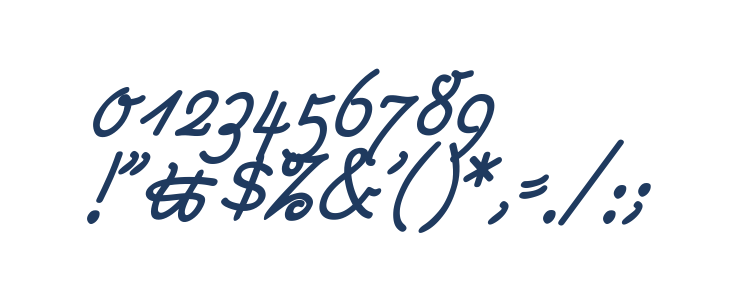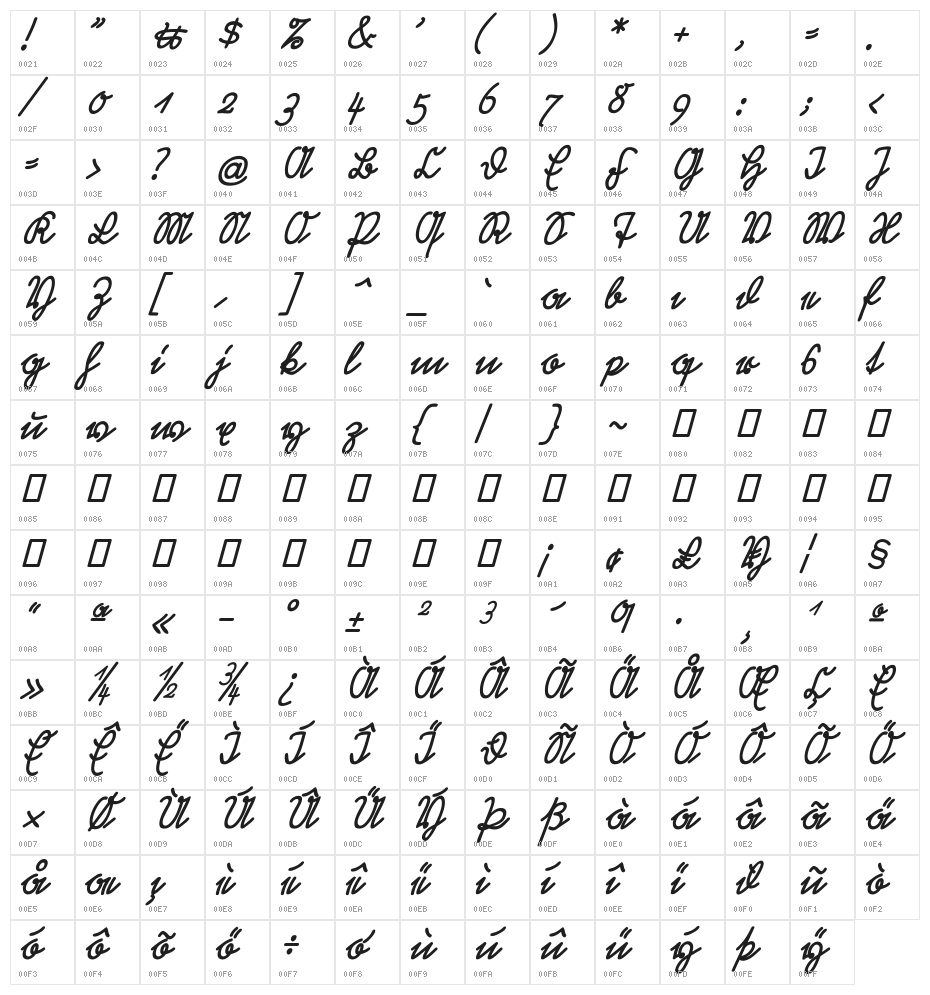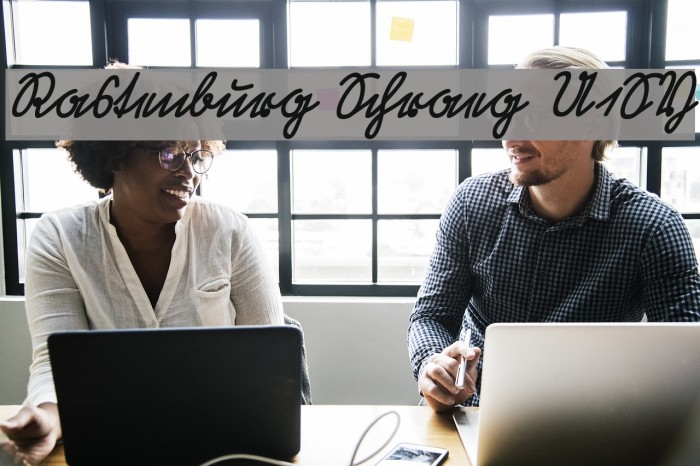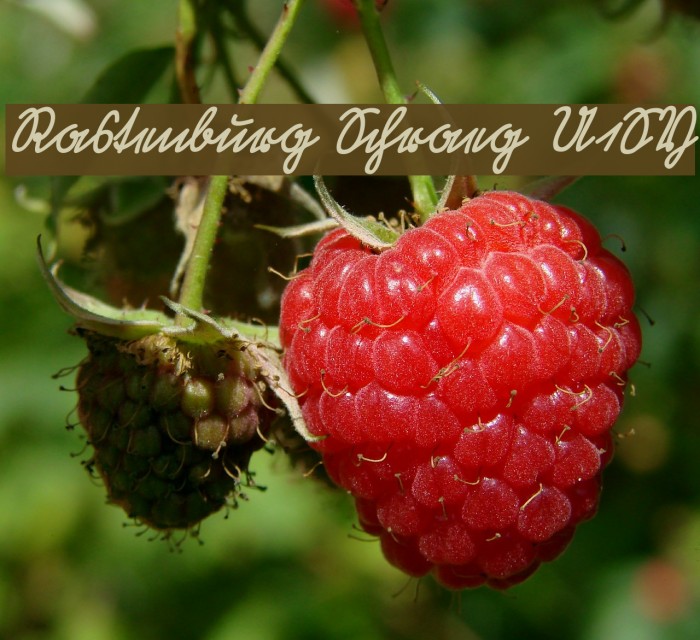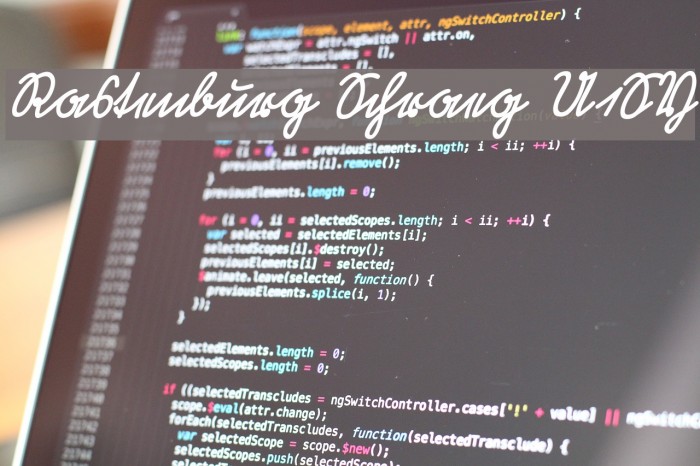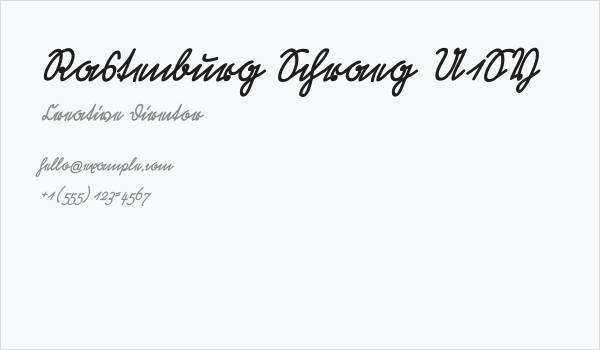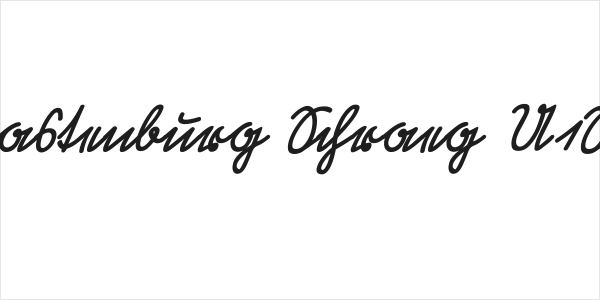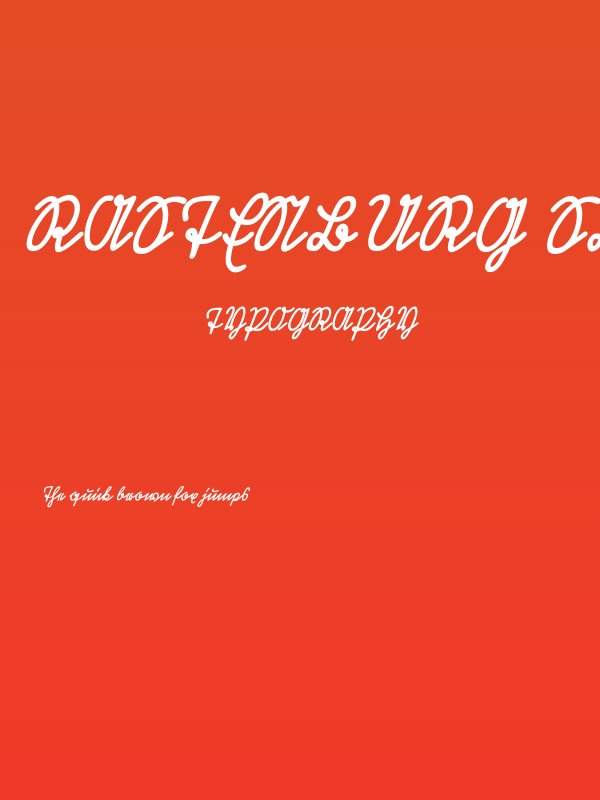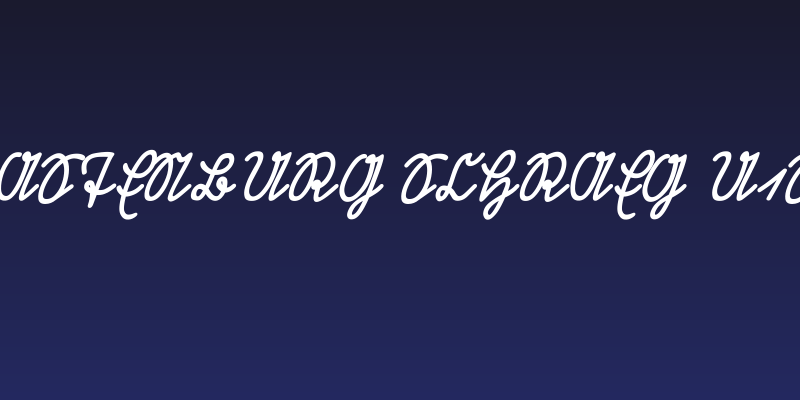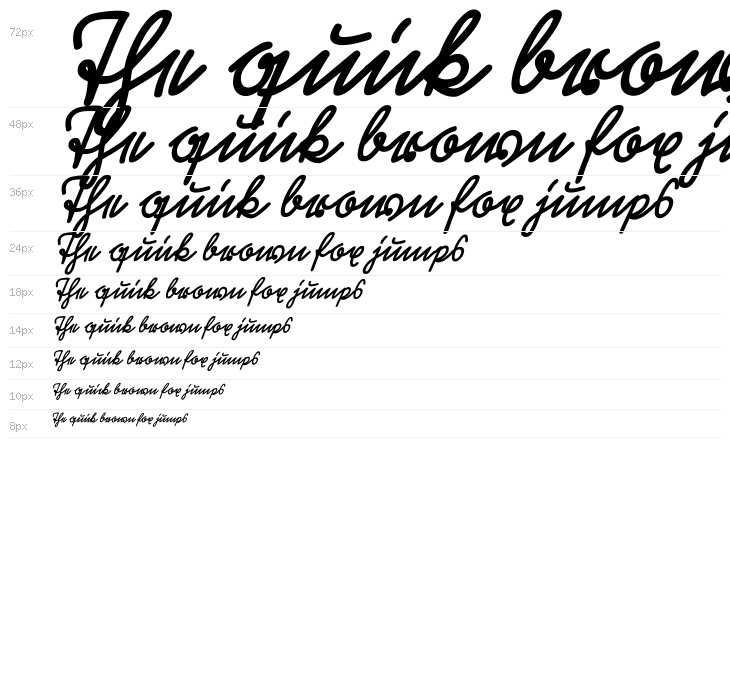
Rastenburg Schraeg U1SY Font
Rastenburg Schraeg U1SY Description
This font features a dynamic and fluid script style, characterized by its elegant, flowing curves and connected letterforms. The uppercase letters exhibit a distinct slant, adding a sense of motion and sophistication. The lowercase letters maintain a consistent rhythm, with smooth transitions between strokes. The numerals are designed with the same cursive flair, ensuring a cohesive look across all characters. Special characters are thoughtfully integrated, maintaining the overall aesthetic. This font's design is both expressive and legible, making it suitable for various creative applications.